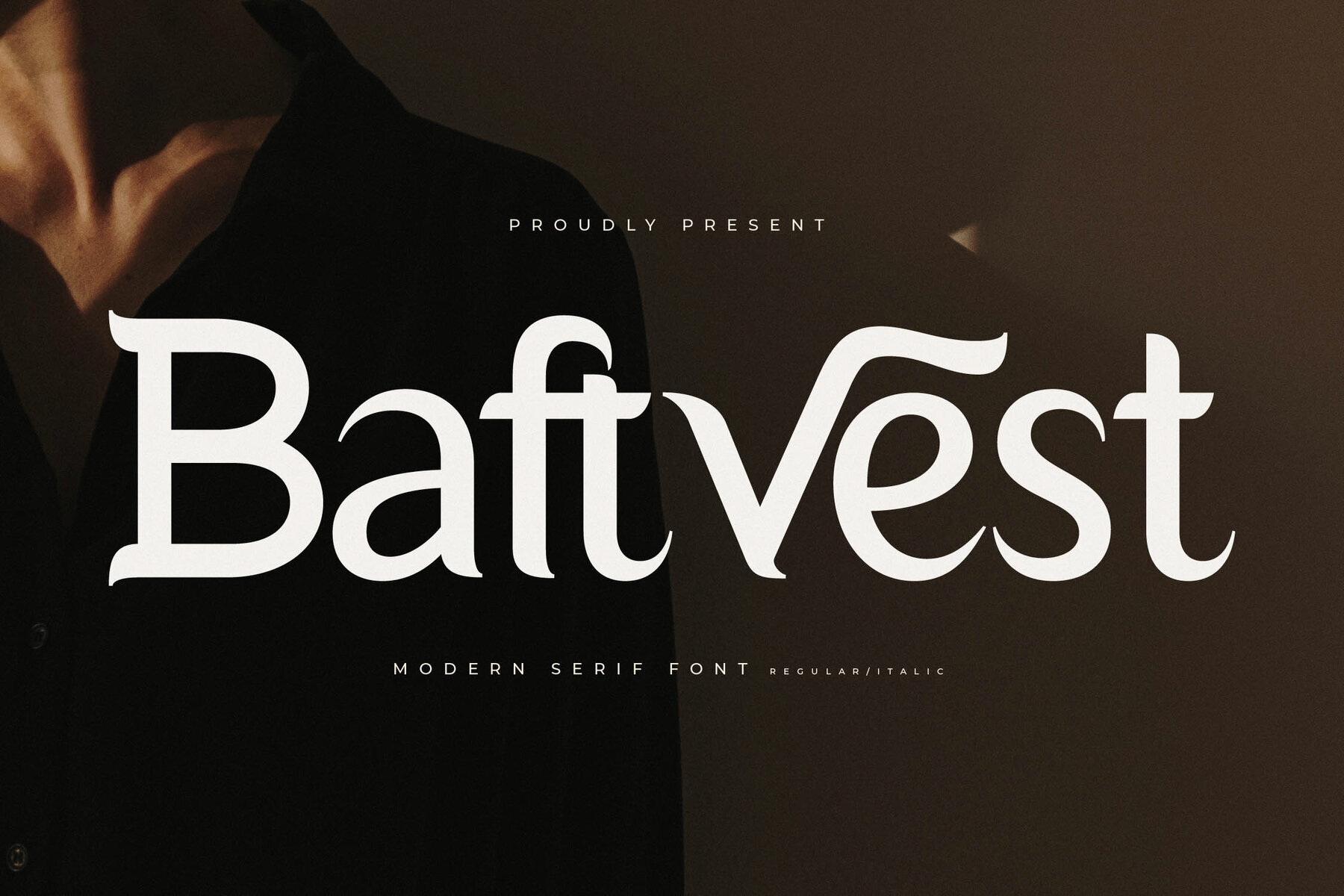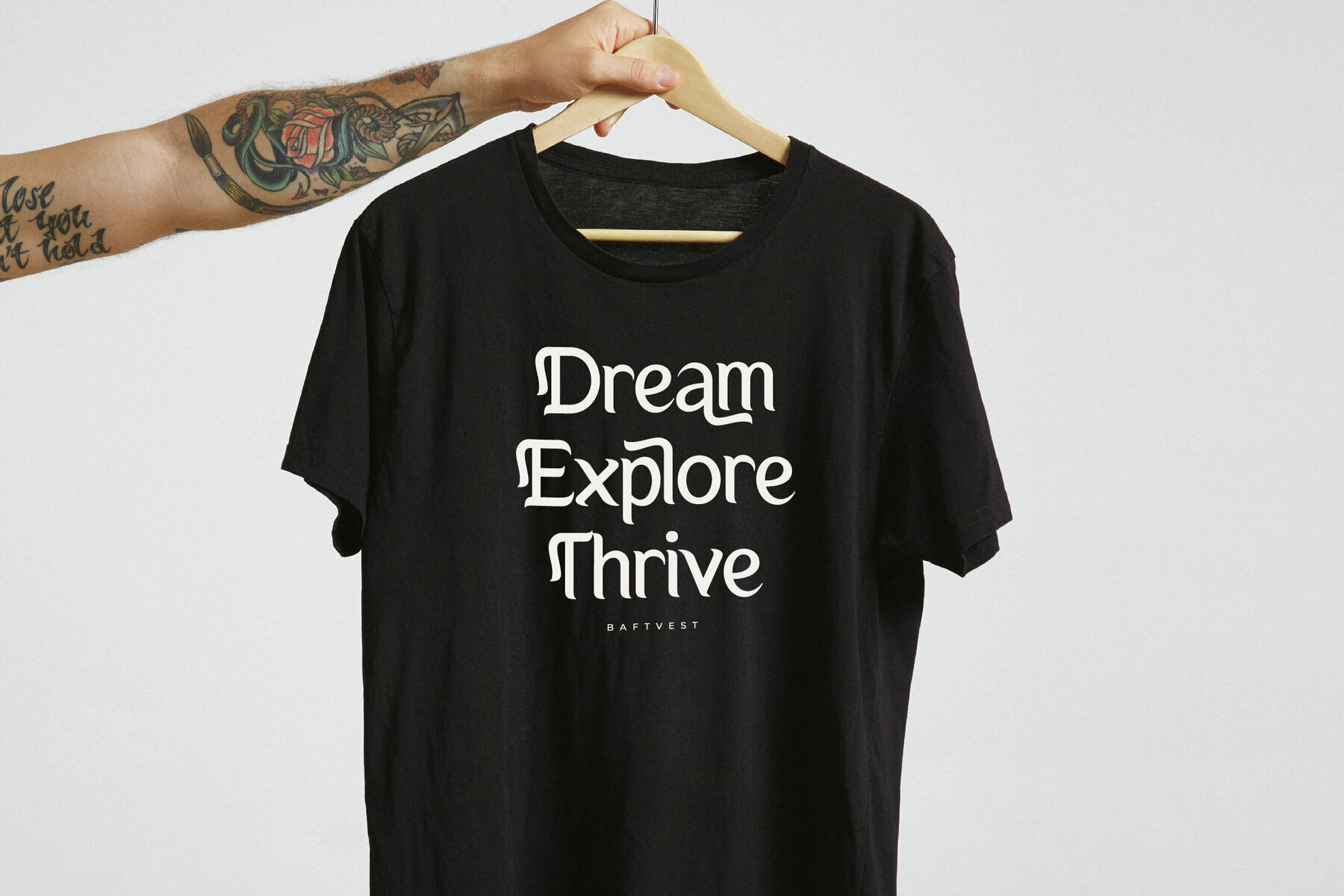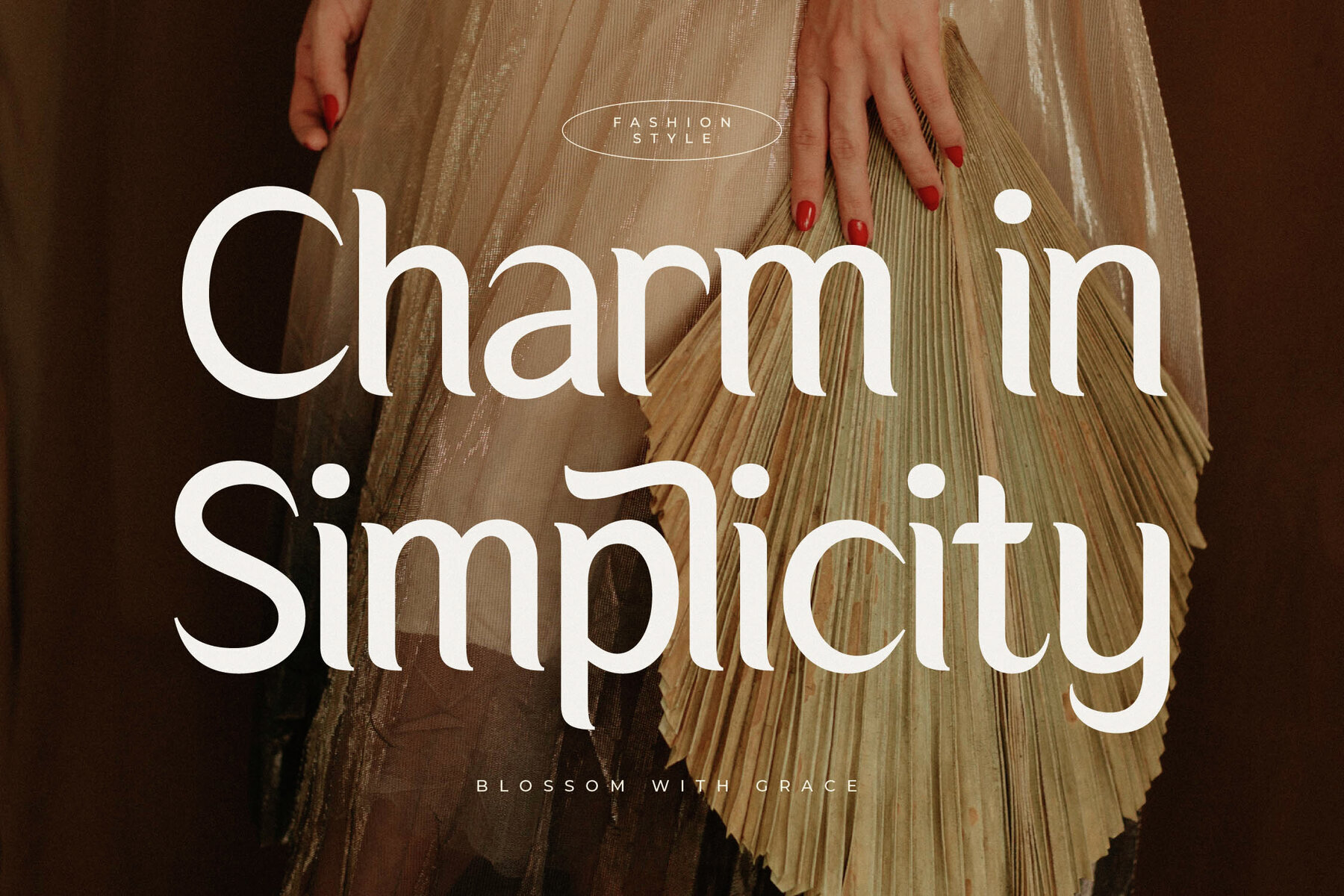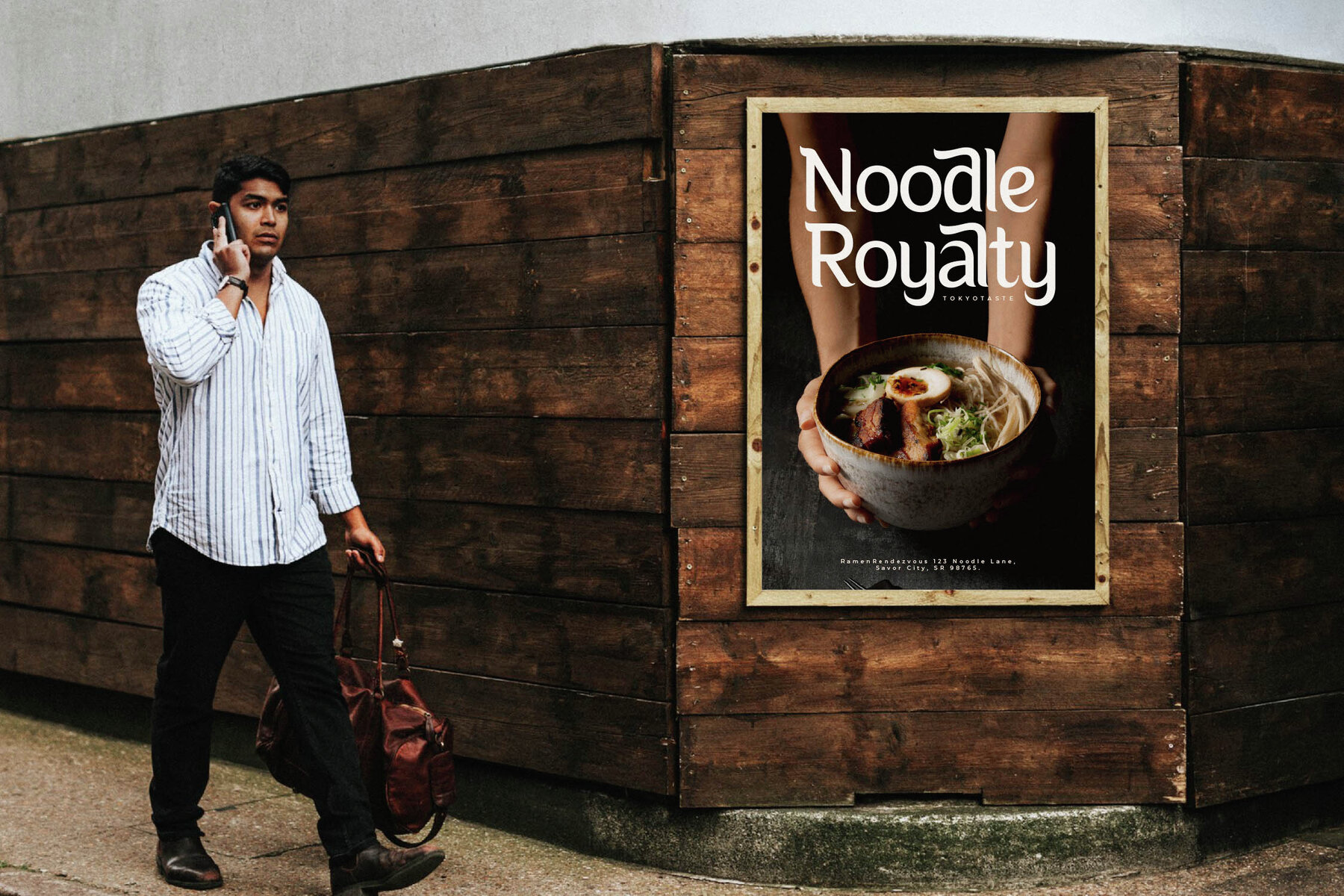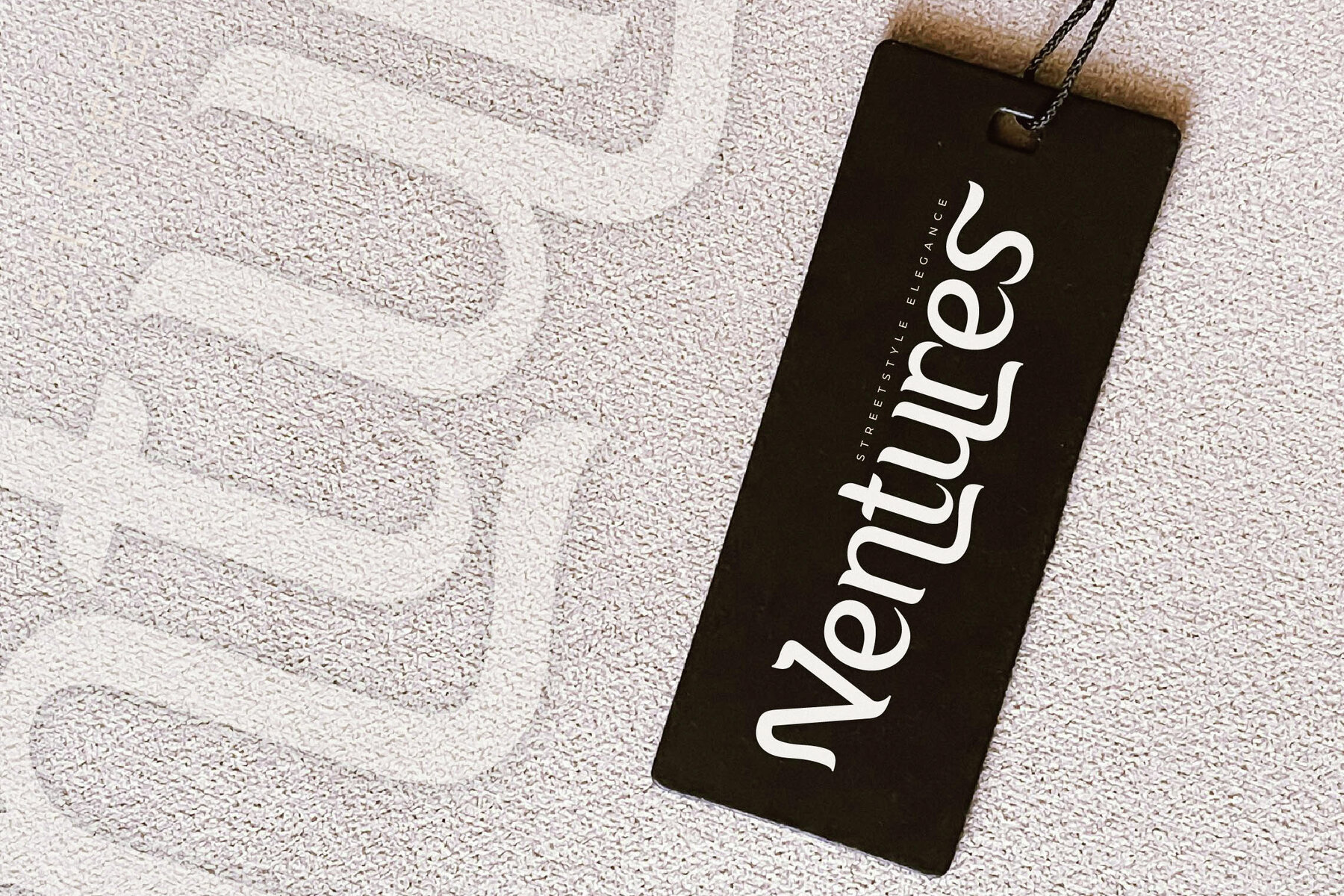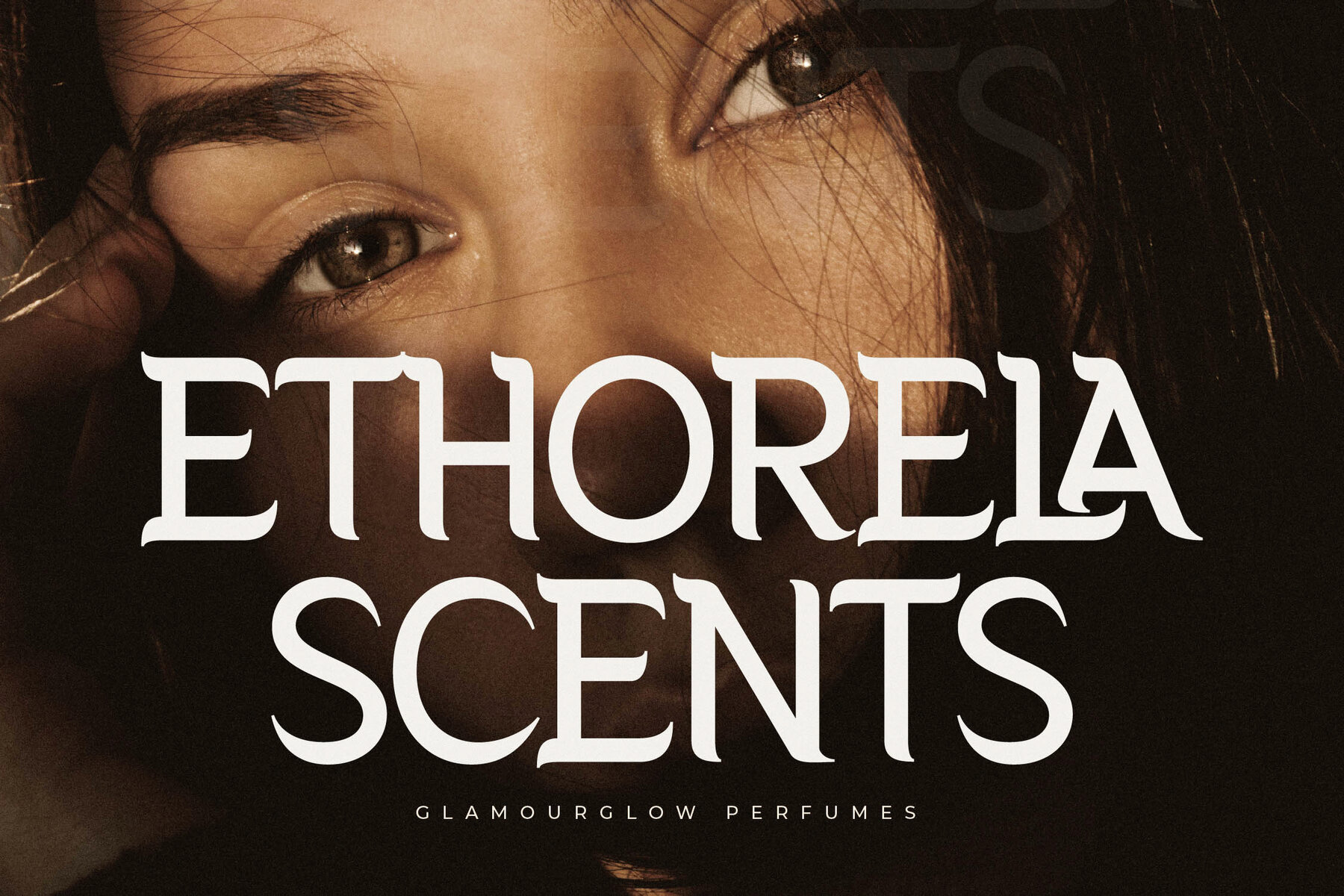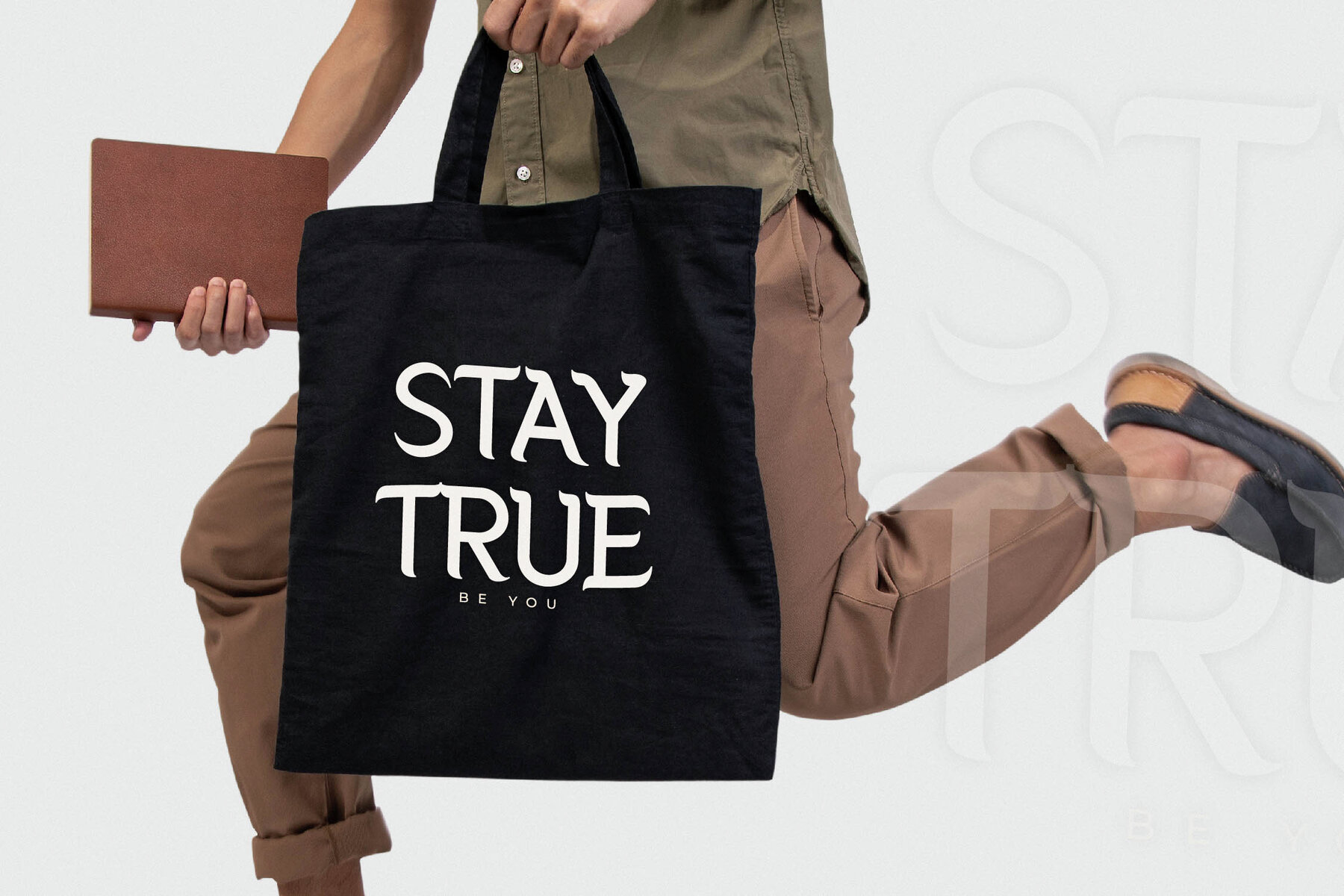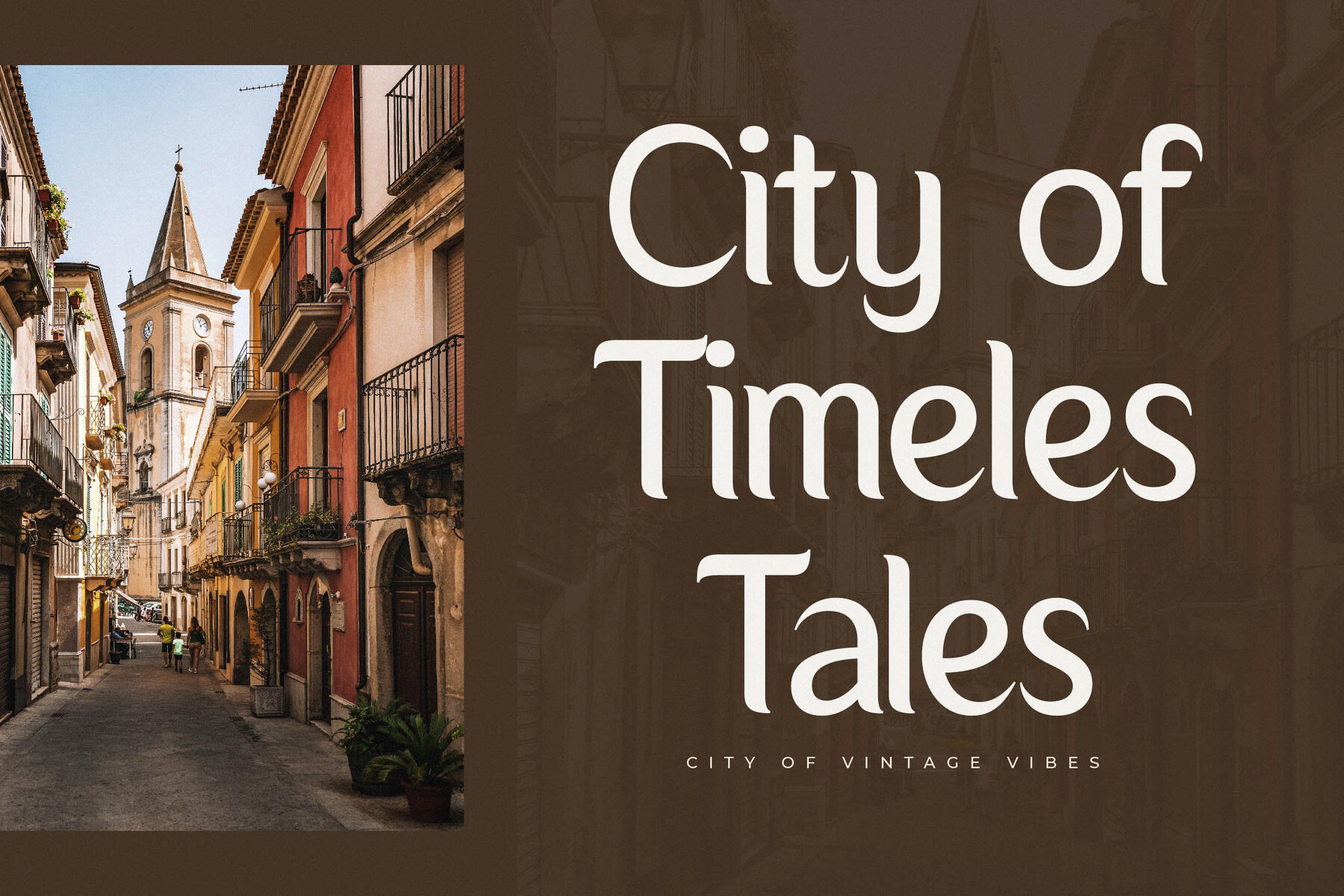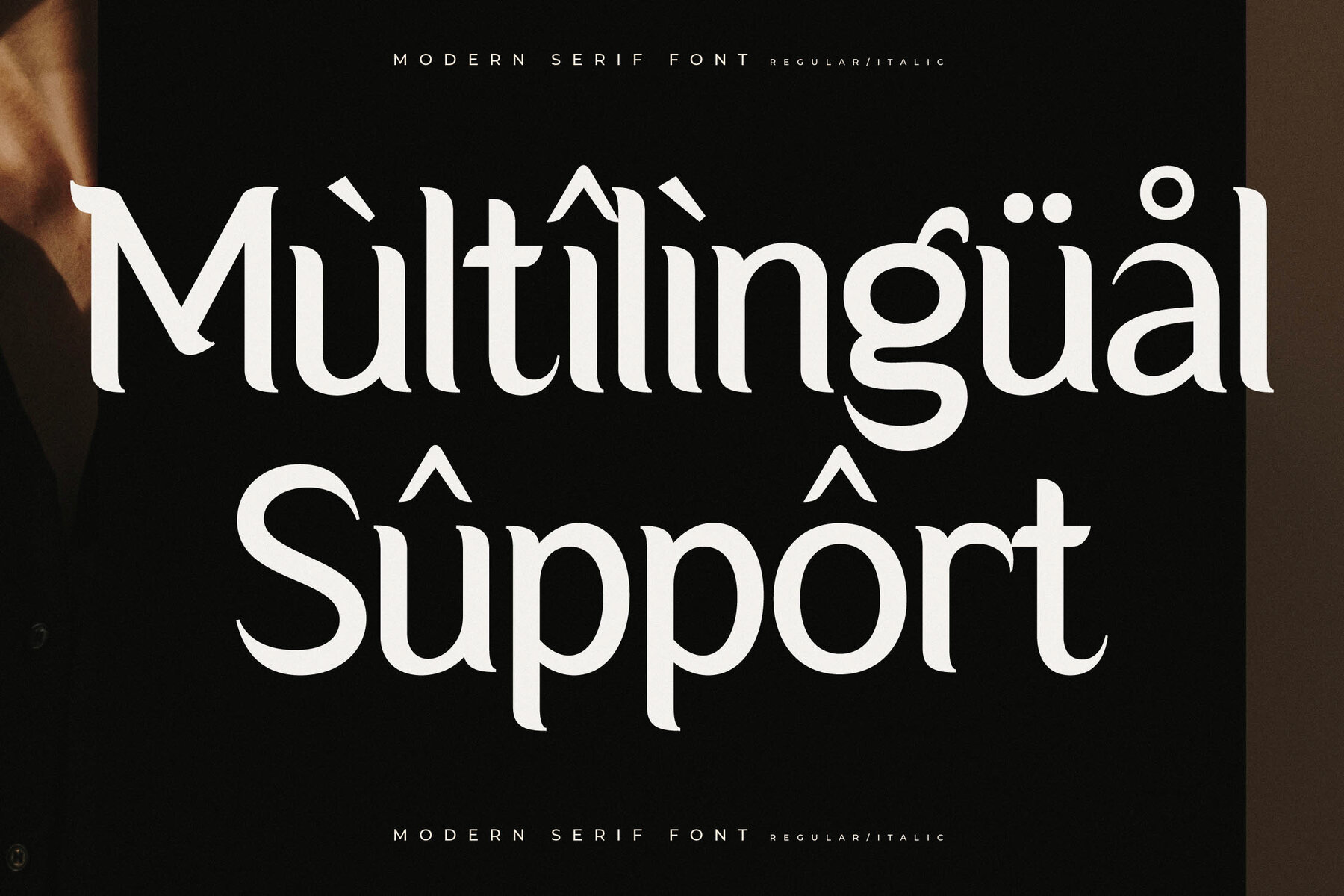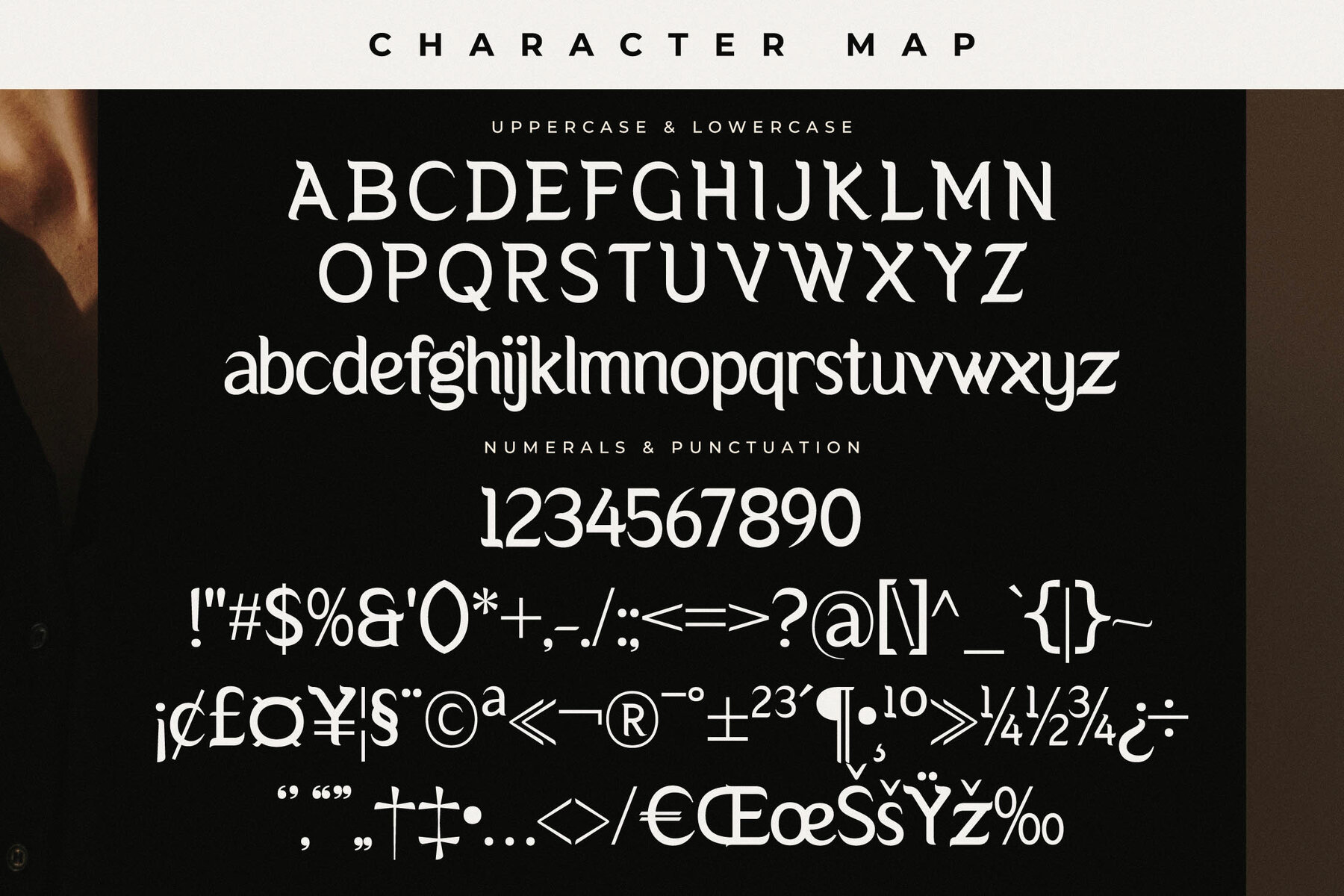
Baftvest Font
Embrace timeless elegance with the Baftvest Modern Serif Font, a sophisticated typeface crafted by Storytype Studio. Its blend of modern and classic design makes it an ideal choice for creating luxurious logos, captivating book or movie titles, and fashion-forward brands. Whether designing for magazines, clothing lines, or creating intricate quotes, Baftvest delivers a unique style that stands out. Transform your projects with Baftvest, complete with user-friendly installation and broad software compatibility.Baftvest Typeface